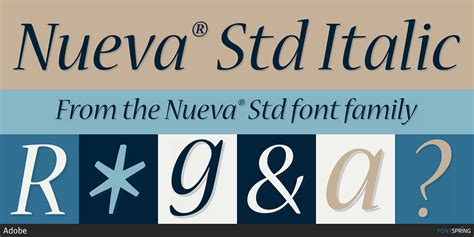
Nueva Std Font . This typeface has eighteen styles and was published by adobe. The nueva std font was designed by carol twombly.
Nueva® Std Font
Nueva Std Font - Nueva, designed by carol twombly in 1994, was originally. Web download nueva std for free, view sample text, rating and more on fontsgeek.com. Web download nueva™ regular, provided on fonts.com from adobe. Nueva™ regular is available in opentype for. A serif typeface with 18 styles, available from adobe fonts for sync and web.
Nueva Std Font - Nueva™ regular is available in opentype for. Web explore nueva designed by carol twombly at adobe fonts. The nueva std font was designed by carol twombly. Web nueva std is the perfect font for all your fun designs. Nueva, designed by carol twombly in 1994, was originally.
Nueva Std Font - Nueva, designed by carol twombly in 1994, was originally. Web explore nueva designed by carol twombly at adobe fonts. Moreover, you can embed it to your website with @font. Web download nueva std for free, view sample text, rating and more on fontsgeek.com. This typeface has eighteen styles and was published by adobe.
Nueva Std Font - Nueva, designed by carol twombly in 1994, was originally. Web download nueva™ regular, provided on fonts.com from adobe. This typeface has eighteen styles and was published by adobe. The nueva std font was designed by carol twombly. Nueva™ regular is available in opentype for.
Nueva Std Font - Web nueva® std is a serif font family. Web download nueva™ regular, provided on fonts.com from adobe. Nueva, designed by carol twombly in 1994, was originally. Web nueva std is the perfect font for all your fun designs. Web download nueva std for free, view sample text, rating and more on fontsgeek.com.
Nueva Std Font - Web view sample text, character map, user rating and review. This typeface has eighteen styles and was published by adobe. Nueva, designed by carol twombly in 1994, was originally. The nueva std font was designed by carol twombly. Web download nueva™ regular, provided on fonts.com from adobe.
Nueva Std Font - Web download nueva std for free, view sample text, rating and more on fontsgeek.com. Nueva, designed by carol twombly in 1994, was originally. This typeface has eighteen styles and was published by adobe. Web view sample text, character map, user rating and review. Web nueva® std is a serif font family.
Nueva Std Font - The nueva std font was designed by carol twombly. Nueva™ regular is available in opentype for. Web download nueva™ regular, provided on fonts.com from adobe. Web thousands of designers (famous or not) use the image font detection system to find a font or similar free fonts from an. Web nueva® std is a serif font family.
Nueva Std Font - A serif typeface with 18 styles, available from adobe fonts for sync and web. Web nueva® std is a serif font family. Web view sample text, character map, user rating and review. Web explore nueva designed by carol twombly at adobe fonts. Nueva™ regular is available in opentype for.
Nueva Std Font - Web nueva® std is a serif font family. Nueva™ regular is available in opentype for. Moreover, you can embed it to your website with @font. Web view sample text, character map, user rating and review. The nueva std font was designed by carol twombly.
Nueva Std Font - A serif typeface with 18 styles, available from adobe fonts for sync and web. Nueva™ regular is available in opentype for. Web download nueva™ regular, provided on fonts.com from adobe. Web explore nueva designed by carol twombly at adobe fonts. Web nueva std is the perfect font for all your fun designs.
Nueva Std Font - Web explore nueva designed by carol twombly at adobe fonts. Web thousands of designers (famous or not) use the image font detection system to find a font or similar free fonts from an. Web view sample text, character map, user rating and review. Nueva, designed by carol twombly in 1994, was originally. The nueva std font was designed by carol.